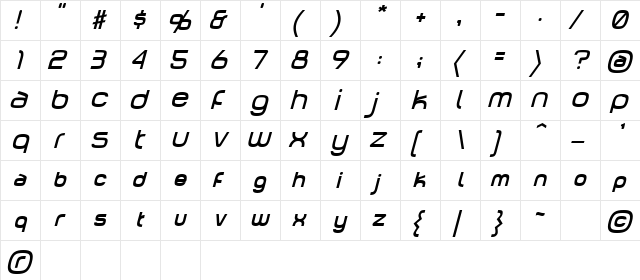
Number 42 Bus NDP Regular
Design Context for Number 42 Bus NDP Typeface
Number 42 Bus NDP takes a measured approach to typography — its balanced proportions and neutral character make it a reliable workhorse for both digital and print work.
Pro Tip: Use Number 42 Bus NDP in both headline and body roles to test its range before committing to a single application.